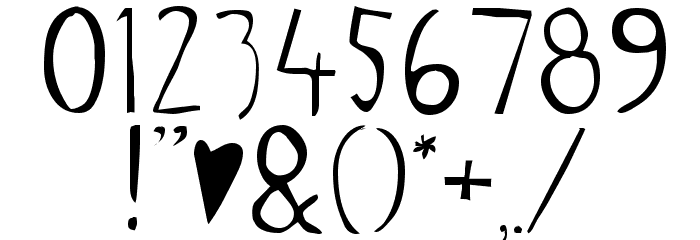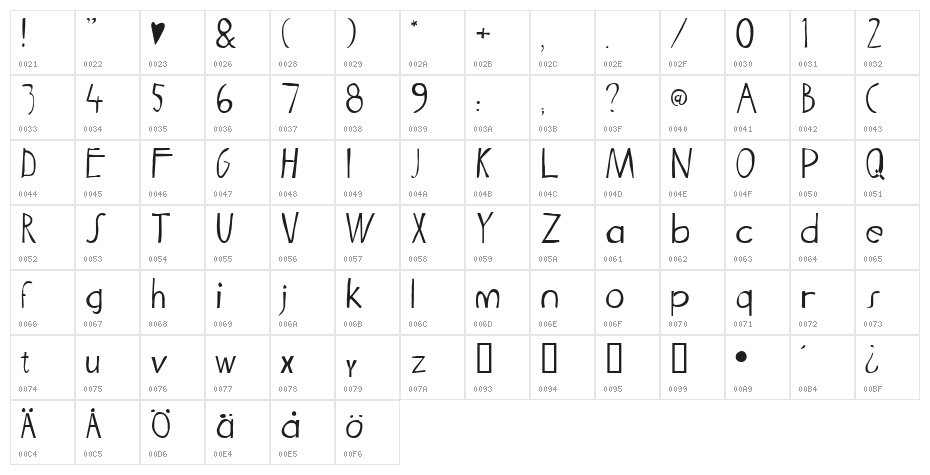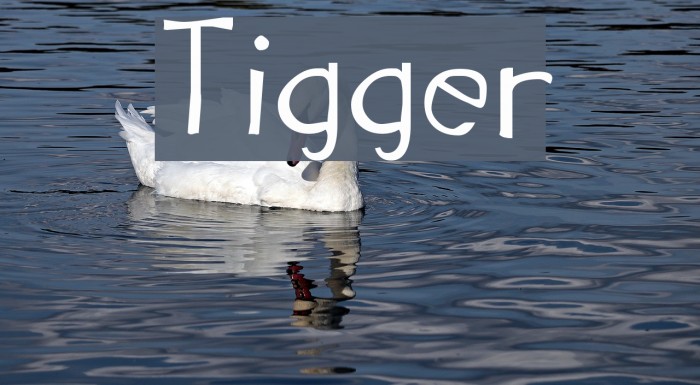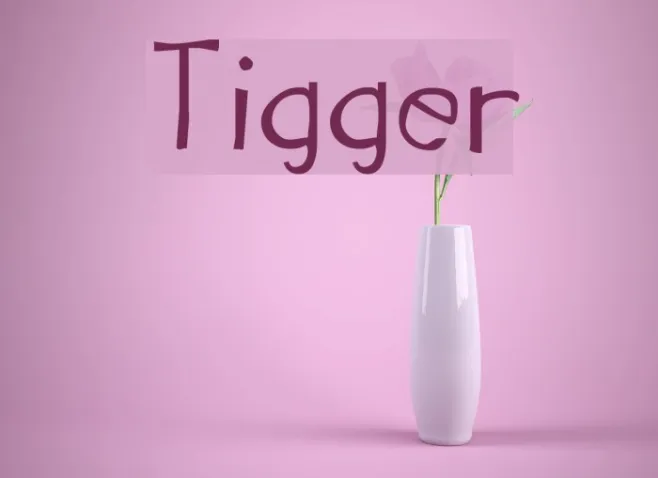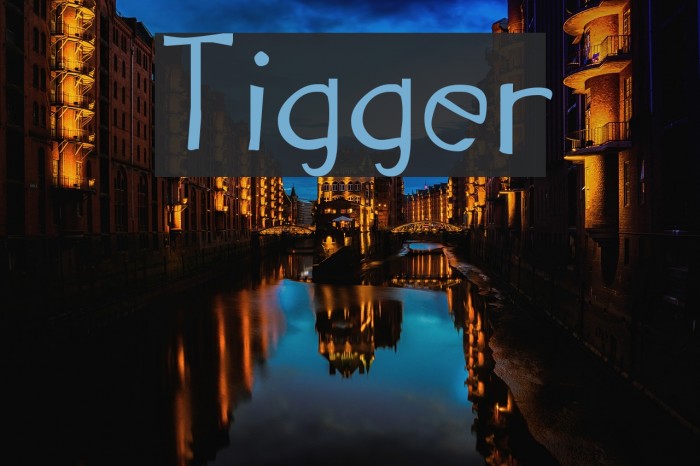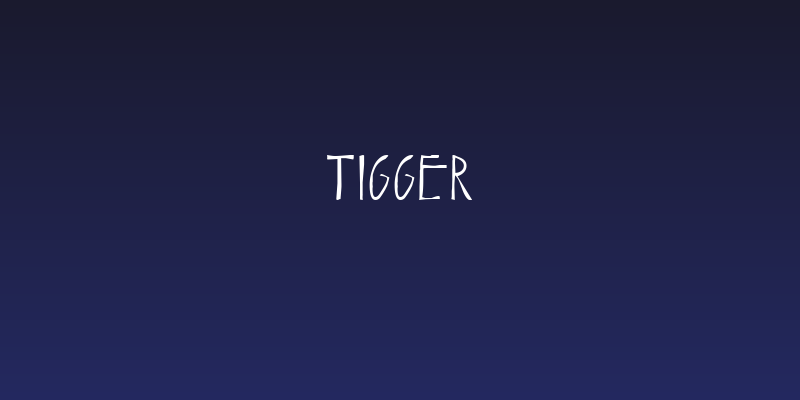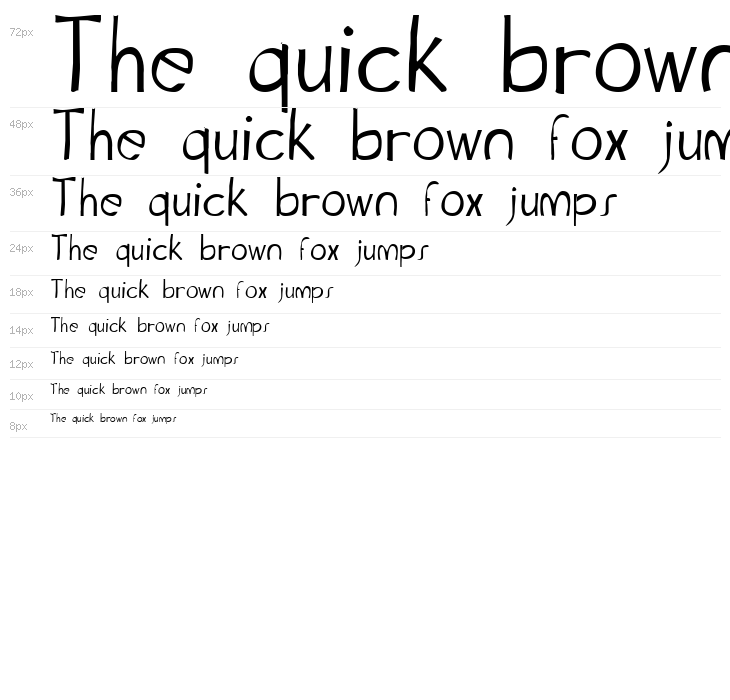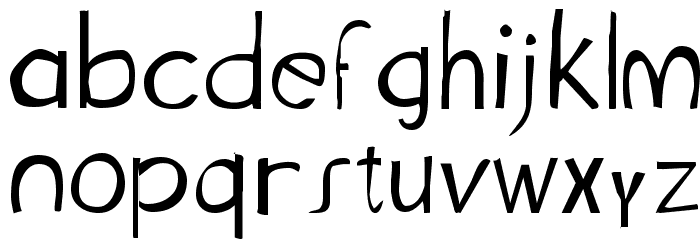
Tigger Font
Tigger Description
This font features a playful and whimsical style, characterized by its irregular and quirky letterforms. The uppercase letters have a tall, narrow appearance with varying stroke widths, giving them a hand-drawn feel. The lowercase letters maintain this playful aesthetic, with some characters exhibiting unique curves and angles. The numerals are similarly styled, with a mix of straight and curved lines that add to the font's charm. Special characters are creatively designed, enhancing the overall whimsical theme. This font's distinct personality makes it suitable for projects that require a fun and informal touch.